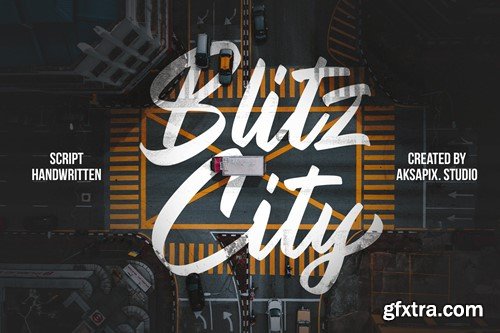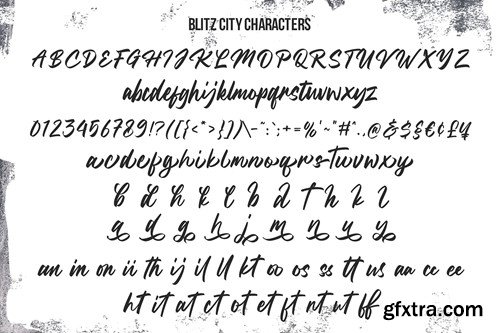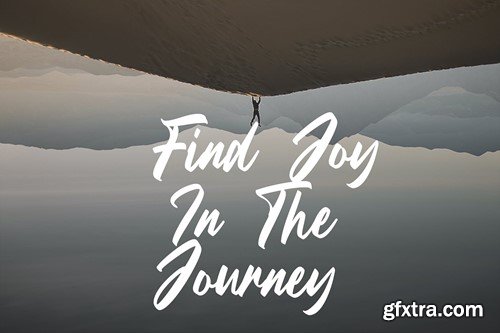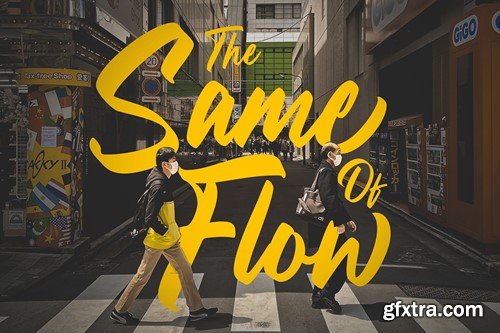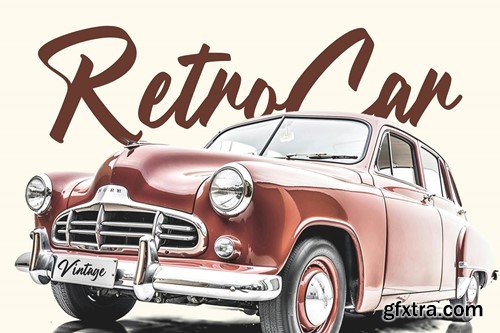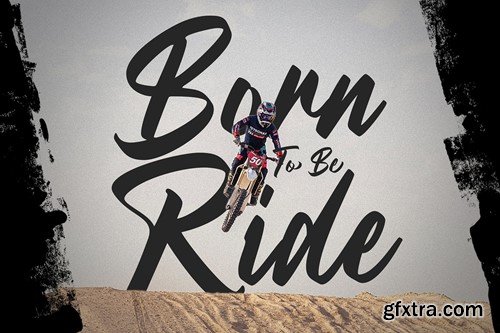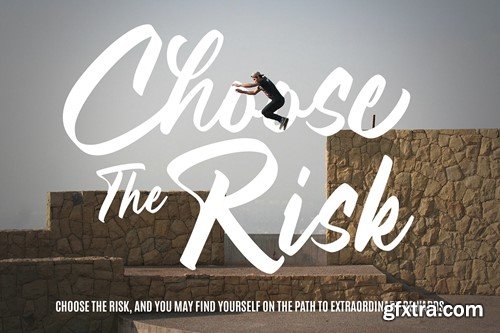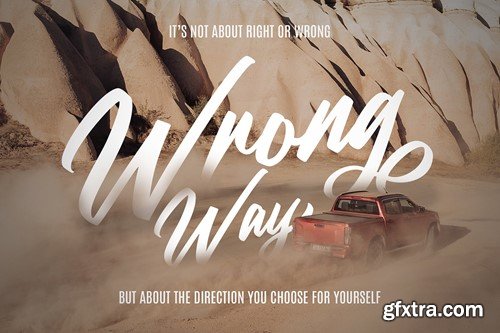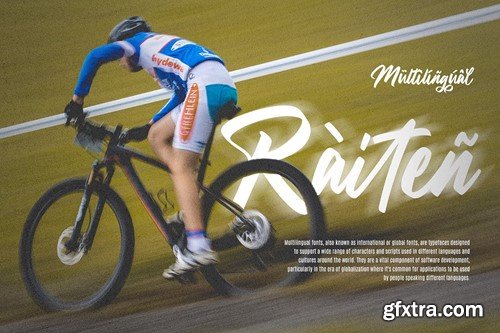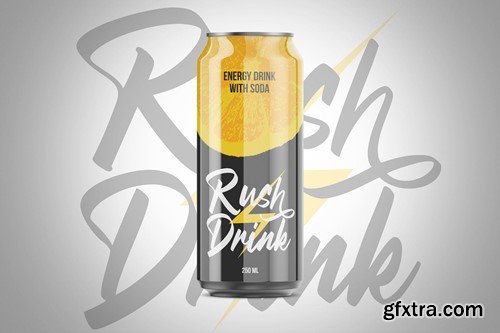
布莱奇城市 - 脚本手写字体 9XN7J2K
Blitz City - Script Handwritten Font is a dynamic and contemporary typeface that captures the essence of urban style. Designed with a script and handwritten feel, this font is a perfect fit for a wide range of design projects, including logos, sports posters, street art designs, retro-themed visuals, social media content, and more. What's Included: Blitz City OTF, TTF, WOFF, WOFF2 Features: Incorporate Blitz City into your designs to infuse a touch of urban flair, making your visual creations stand out and resonate with the vibrant energy of the city. Whether it's for street art, sports events, or social media campaigns, Blitz City adds a modern and authentic edge to your creative endeavors.